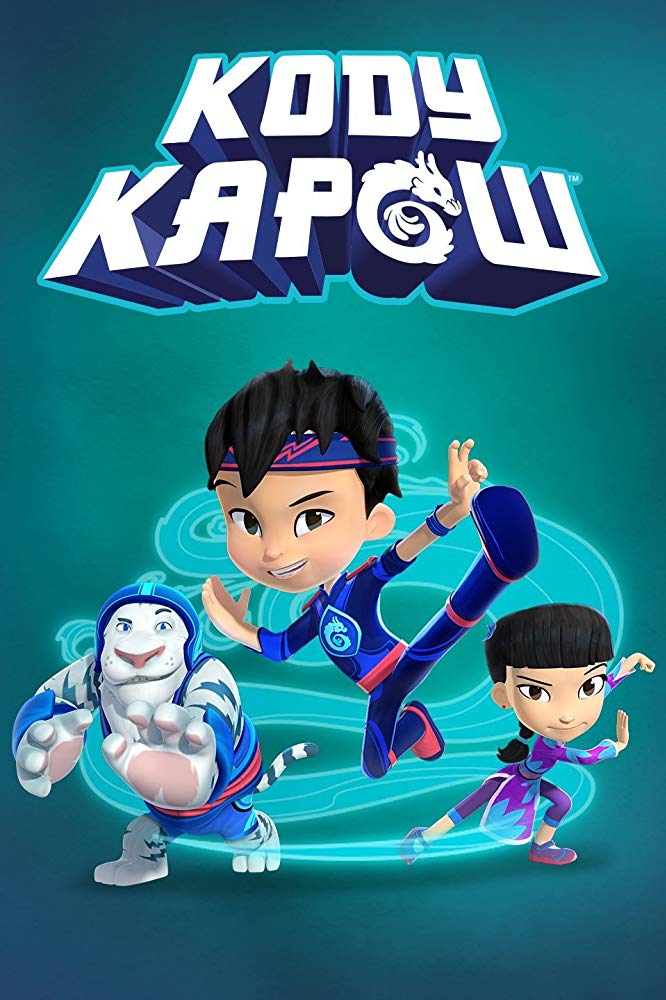
Kody Kapow Font
AnimationKody Kapow is an animated television series about a young boy named Kody who uses his martial arts skills to solve problems and help those in need.